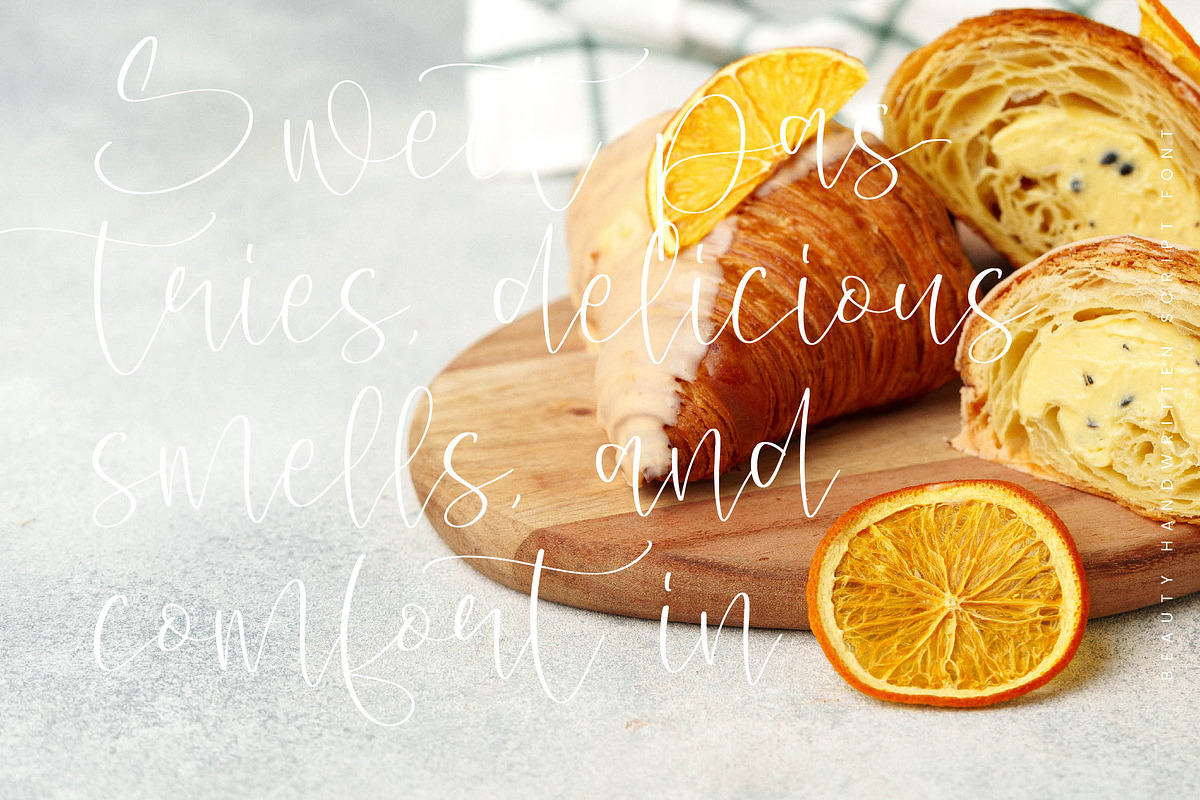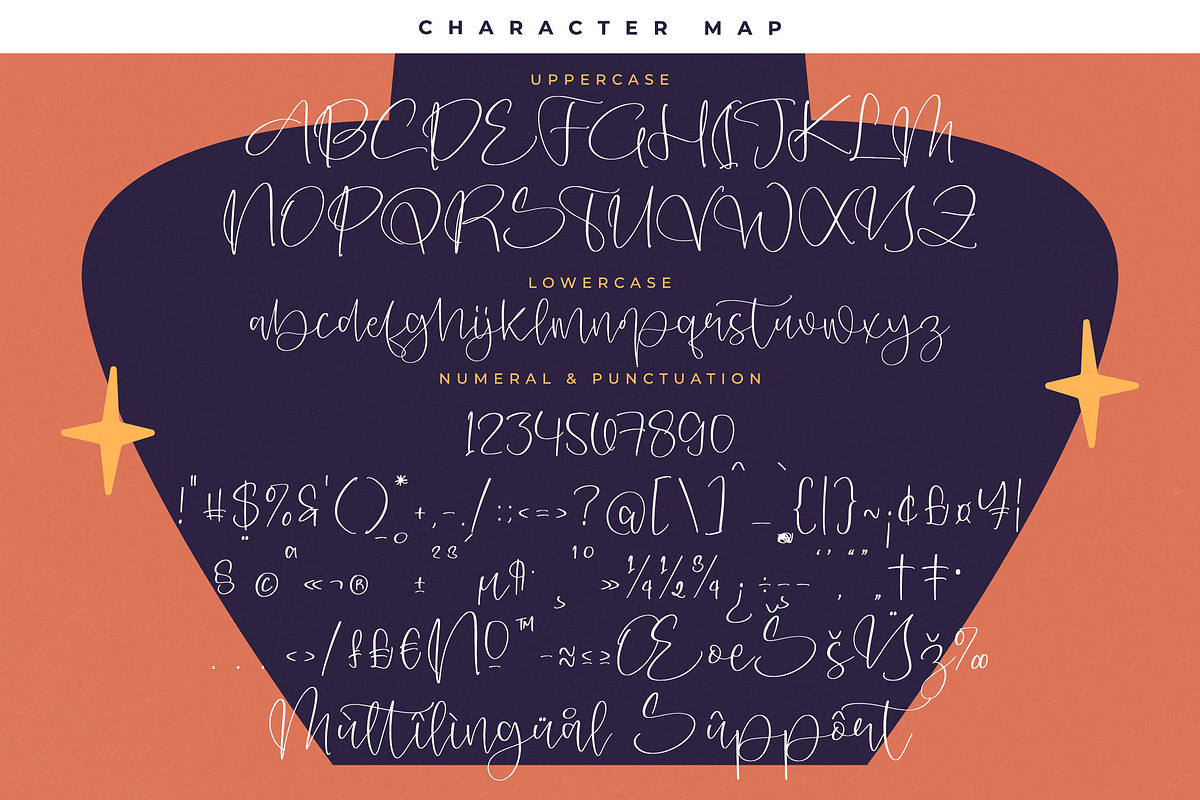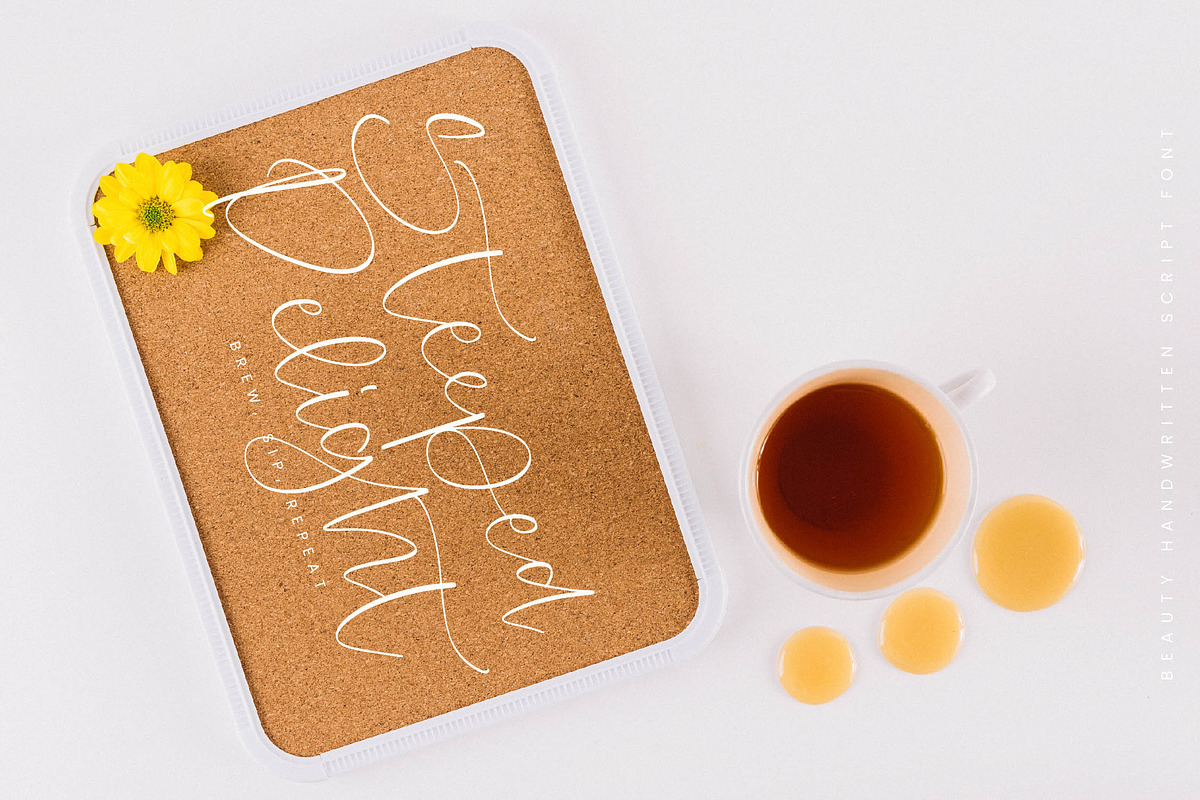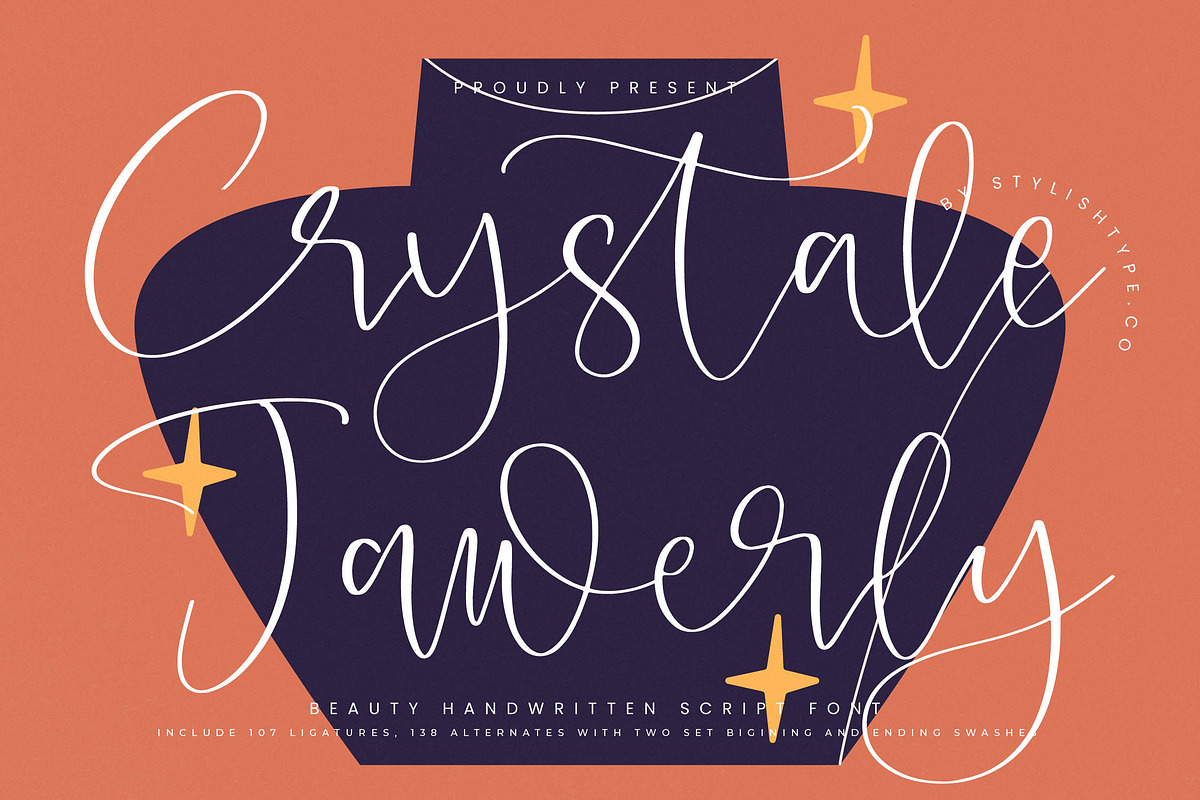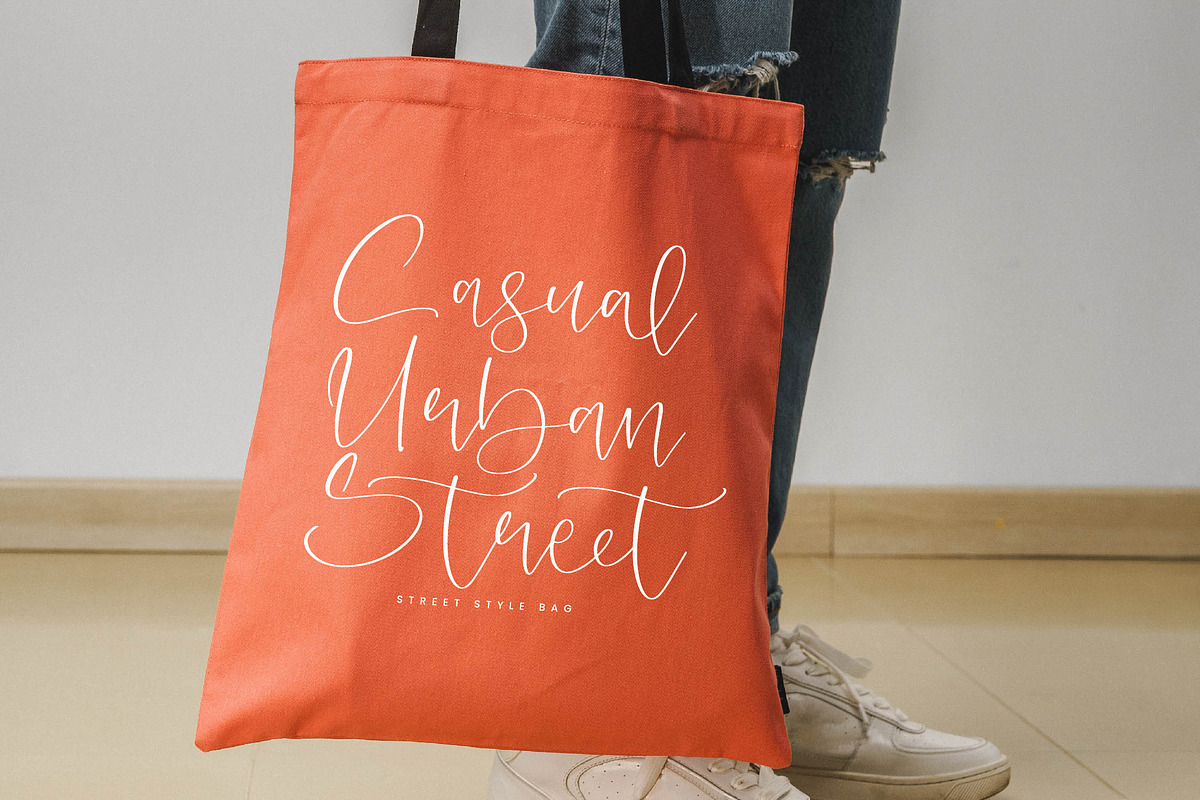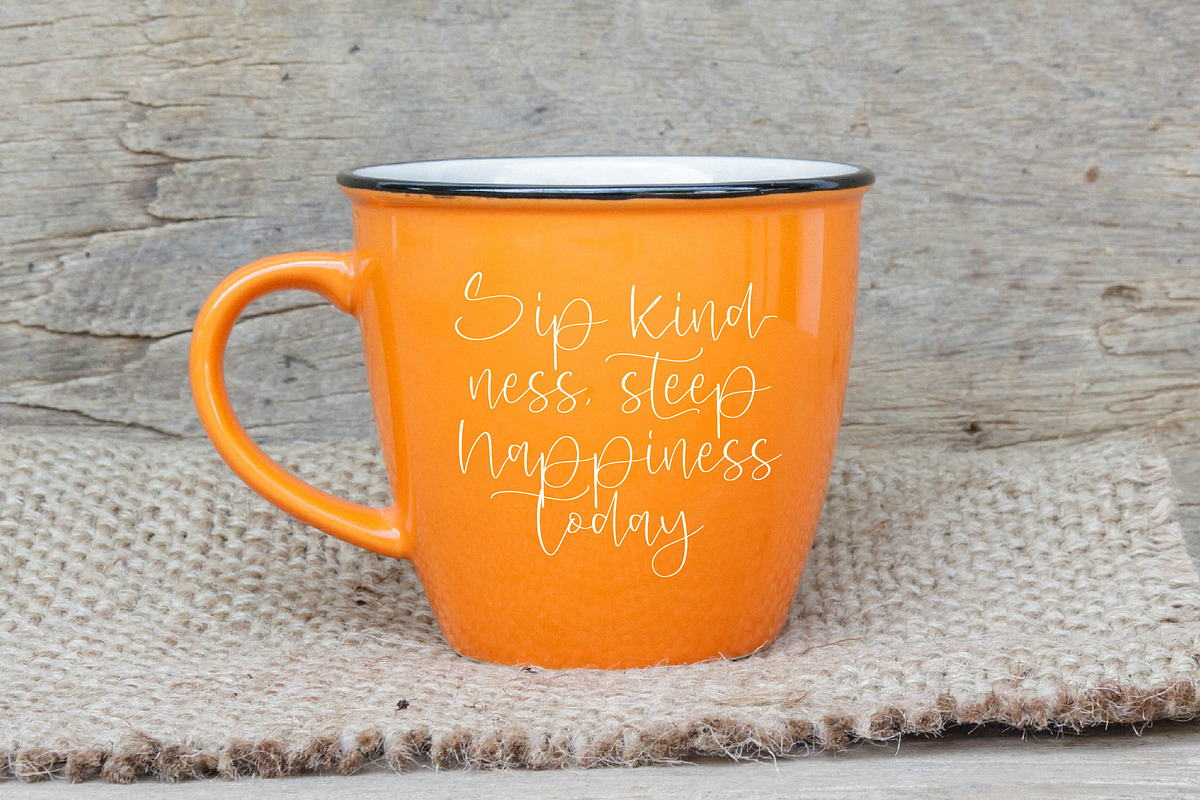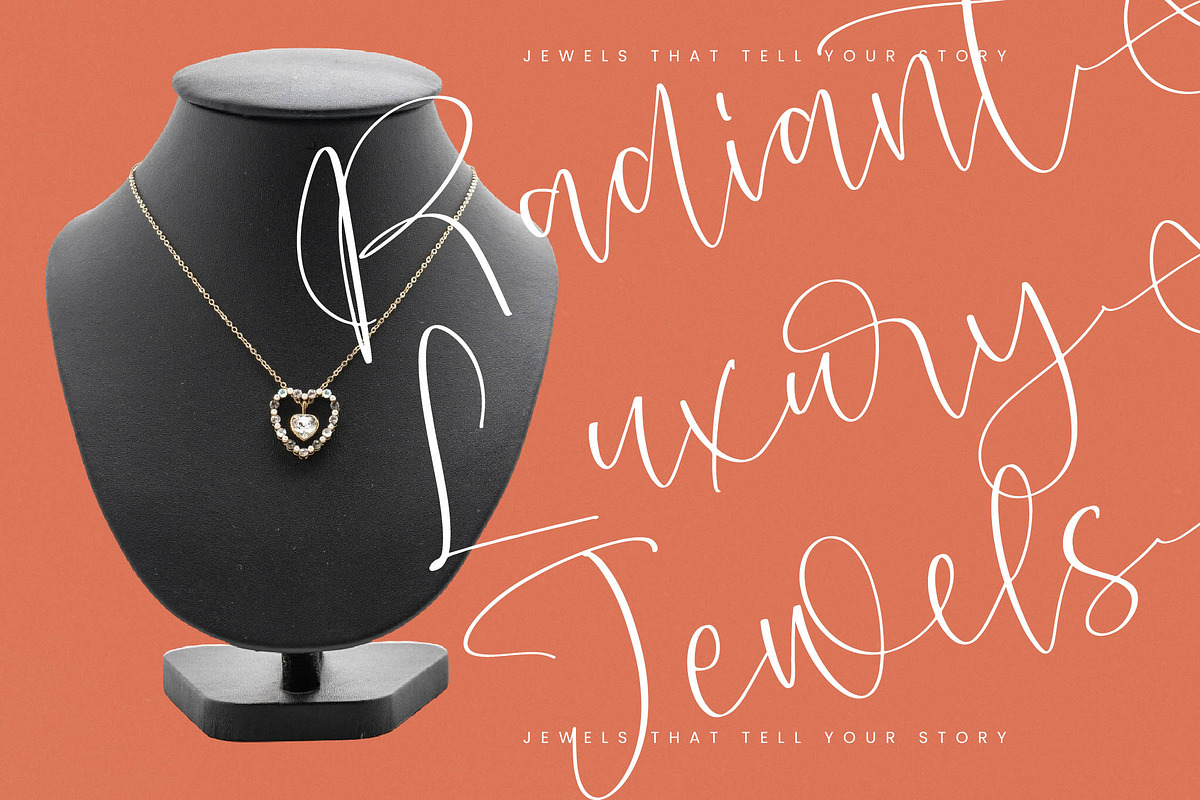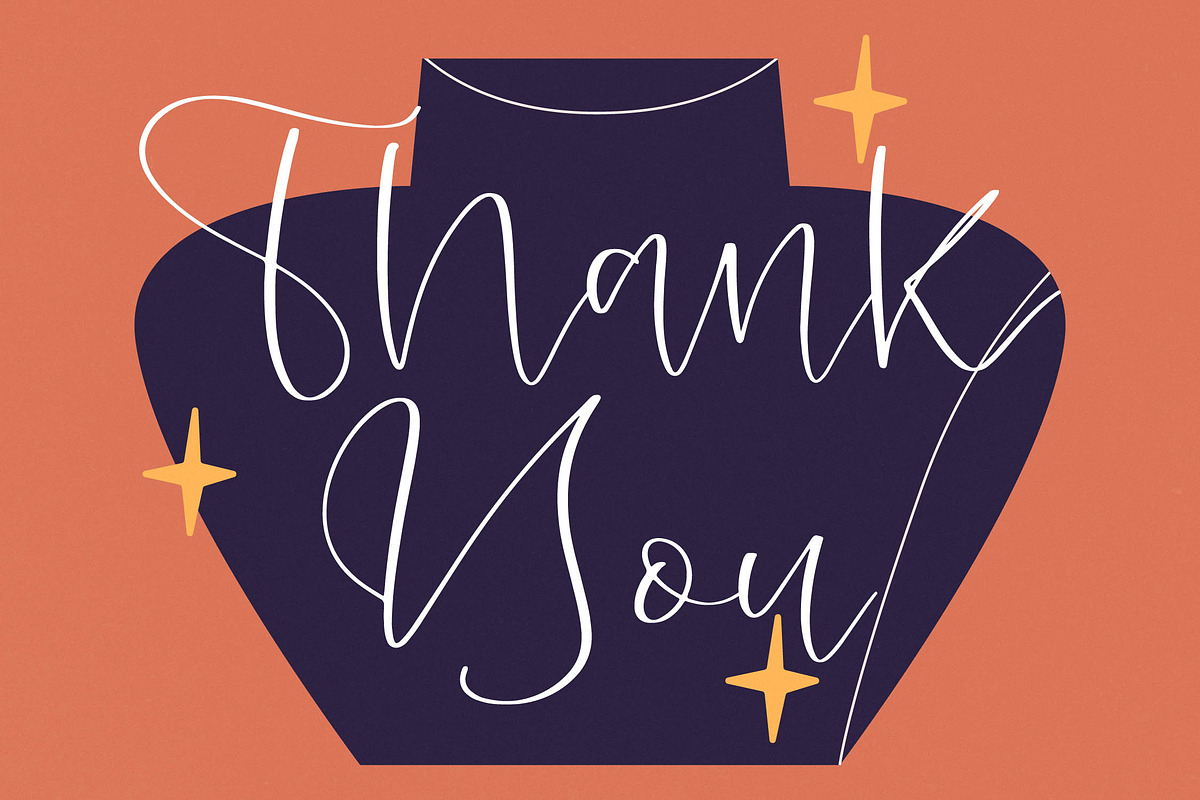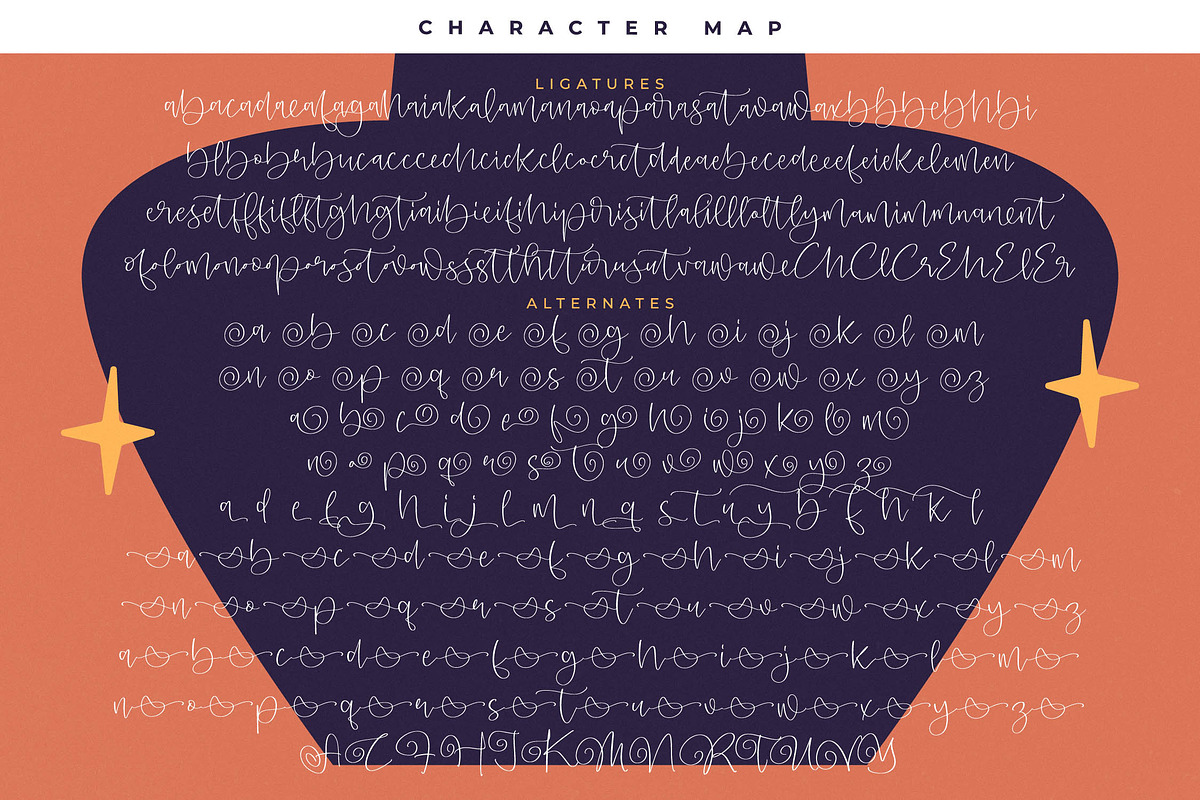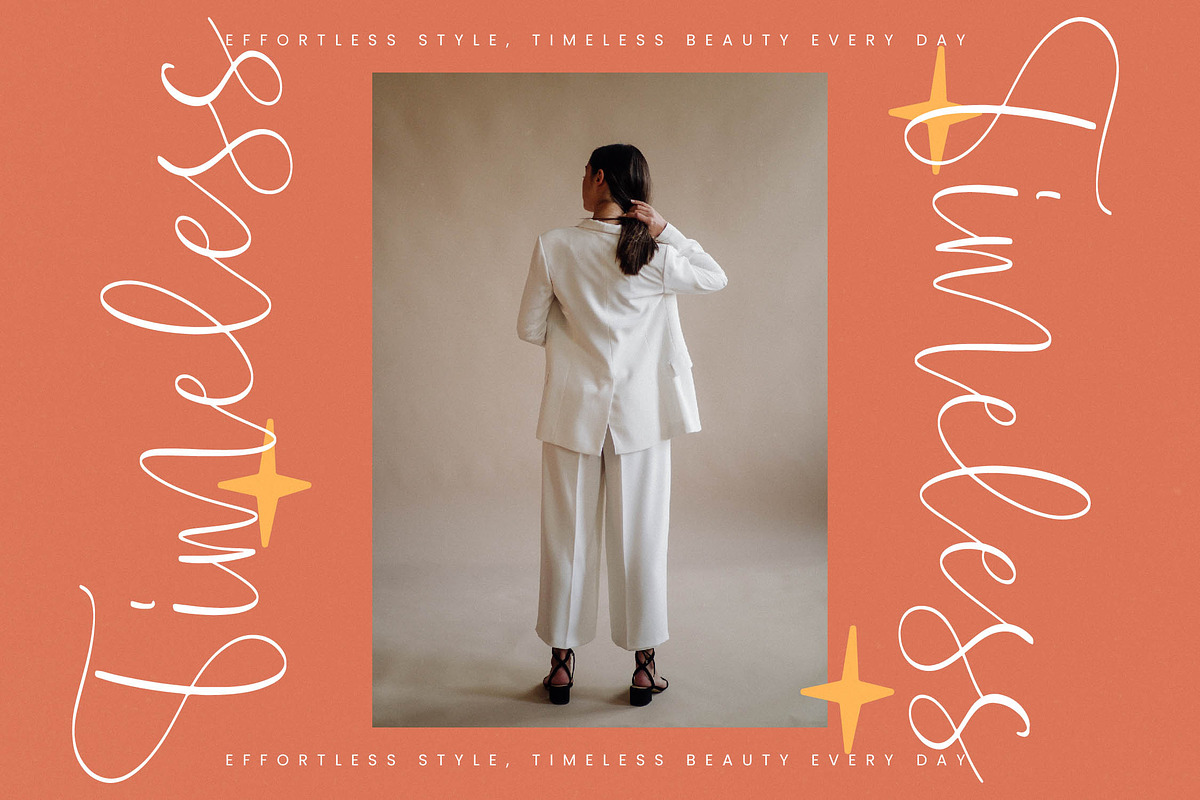
Crystale Jawerly Beauty Handwritten
Crystale Jawerly - Beauty Handwritten Script Font , from Stylishtype.Co , Suitable for any projects such as: logos, branding projects, homeware designs, product packaging, mugs, quotes, posters, shopping bags, t-shirts, book covers, name card, invitation cards, greeting cards, label, photography, watermark, special events, and all your other luxury and beautiful projects that need a Luxury Script taste.
- 107 Ligature 139 Alternates & Swashes